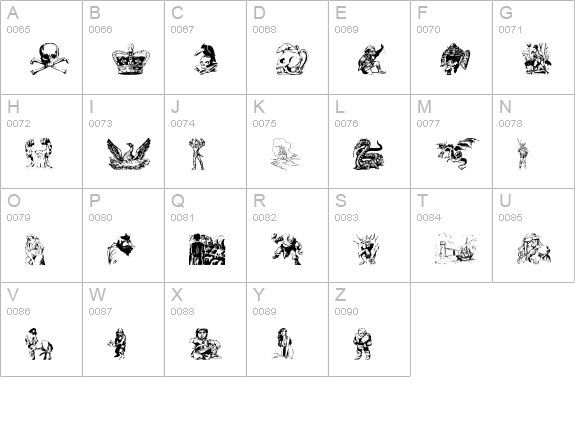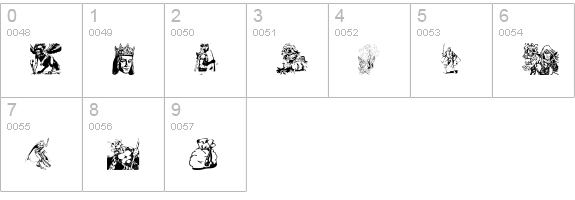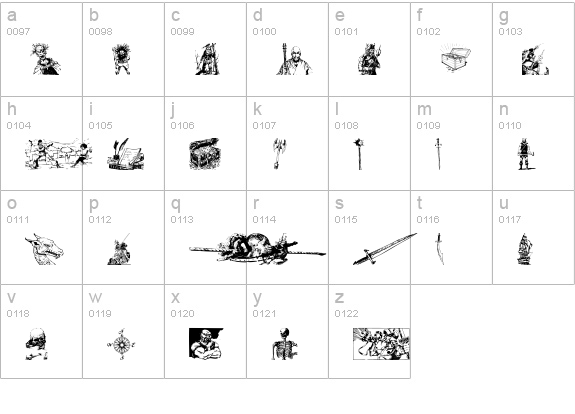
Fantasy Clipart Font Details
Fantasy Clipart font is a whimsical and enchanting typeface that transports you to a magical realm filled with dragons, fairies, and knights in shining armor. This unique font features intricate details and ornate embellishments that evoke a sense of wonder and adventure. Whether you're creating invitations for a medieval-themed party or designing a fantasy novel cover, Fantasy Clipart font is sure to add a touch of mystique and charm to your project. Best of all, Fantasy Clipart font is available for free download at FontsMarket.com, making it easily accessible to all aspiring designers and fantasy enthusiasts. Embrace the magic and unleash your creativity with this captivating font that brings your imagination to life.